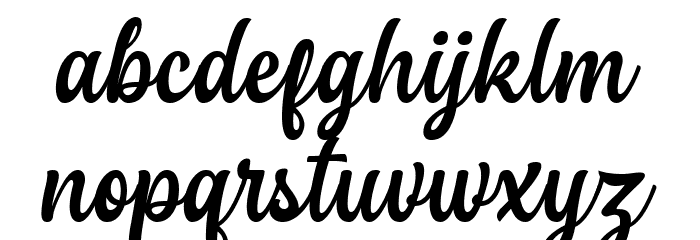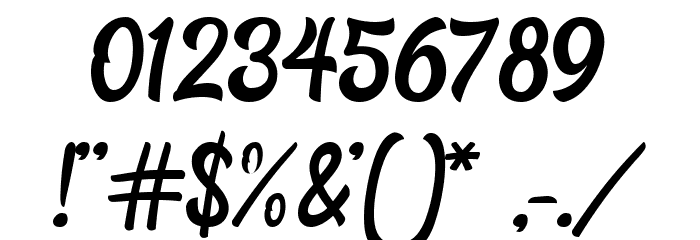
Catalunya demo Font
This font features a flowing, cursive style that exudes elegance and sophistication. The characters are interconnected, creating a seamless and fluid appearance. The uppercase letters are bold and prominent, while the lowercase letters maintain a consistent flow with gentle curves and loops. The numerals are styled to match the cursive theme, adding a touch of flair to numerical expressions. Special characters are also designed with the same attention to detail, ensuring a cohesive look across all elements. The overall impression is one of grace and fluidity, making it suitable for projects that require a touch of elegance.
A flowing, cursive font with elegant, interconnected characters.
- Proposed Projects: Ideal for wedding invitations, elegant branding, personal stationery, and decorative signage.
- Overall Style: Elegant
- Use Case: Logos, Invitations, Decorative Text